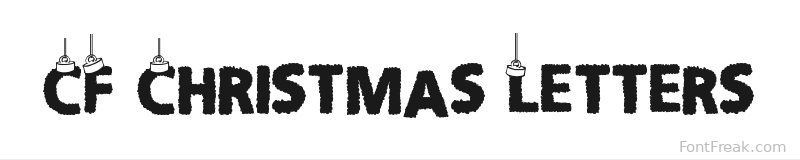
CF Christmas Letters
CF Christmas Letters by Cloutierfontes is a charming decorative font that captures the whimsical essence of the holiday season. This font features a playful, hand-drawn style, reminiscent of festive lettering found on holiday cards and decorations. The stroke weight varies, giving it a lively and dynamic appearance that stands out in any design. The letters are slightly irregular, which adds to the font's handcrafted feel, making it perfect for evoking a cozy, festive atmosphere. With its unique decorative elements, including playful accents and a slightly textured finish, CF Christmas Letters exudes a joyful spirit that resonates with the holiday season.
This font is ideally suited for a variety of seasonal applications. It works beautifully for Christmas cards and holiday invitations, lending a personal touch to each design. Additionally, it can be effectively utilized in promotional materials for holiday events, such as winter festivals or Christmas markets. Graphic designers may find it particularly useful for creating eye-catching social media graphics or digital content aimed at celebrating the festive season. Small business owners can leverage this font in their holiday marketing campaigns, such as in product labels or festive signage, while content creators can incorporate it into blog posts and articles focused on holiday themes.
The target audience for CF Christmas Letters includes graphic designers, small business owners, and content creators seeking to add a festive flair to their work. The font's freeware license makes it accessible for various projects, ensuring that anyone can use it without worry. Overall, CF Christmas Letters stands out for its delightful, hand-drawn quality and versatility, making it an excellent choice for anyone looking to infuse their designs with holiday cheer. With CF Christmas Letters font free download available, embracing the spirit of the season in your projects has never been easier.